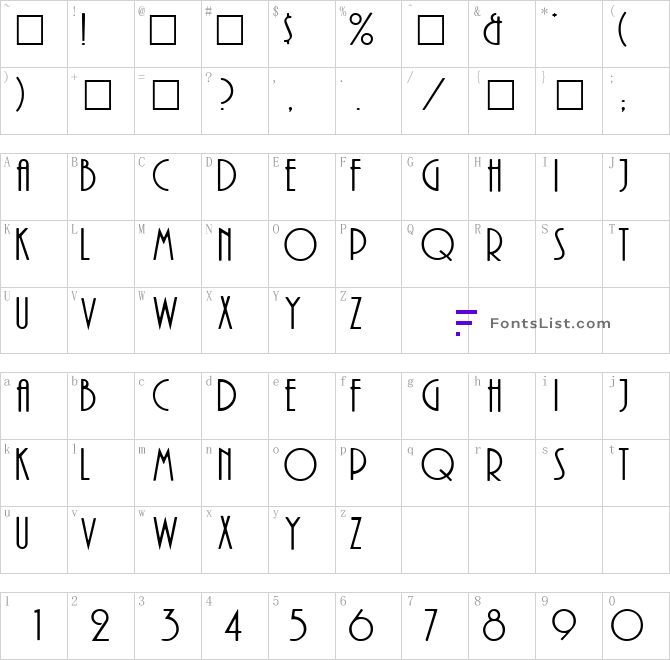
- Font Name:AprilleDisplayCapsSSK
AprilleDisplayCapsSSK-Regular.ttf is a very beautiful artistic font, AprilleDisplayCapsSSK-Regular.ttf is widely used in the design and printing of various books and pictures,AprilleDisplayCapsSSK-Regular.ttf has a strong visual impact,AprilleDisplayCapsSSK-Regular.ttf is a commonly used font in newspapers, magazines and books, and is used in posters, e-commerce Poster design, store design, logo design, font design and other fields.AprilleDisplayCapsSSK-Regular.